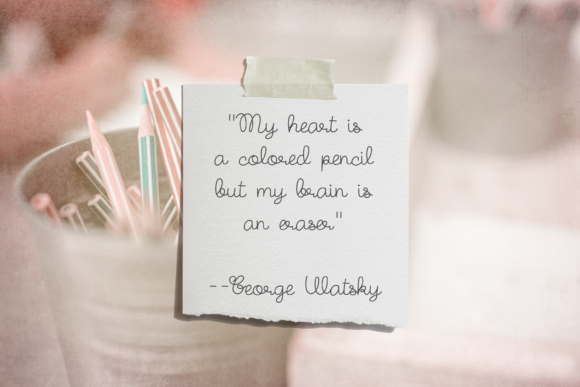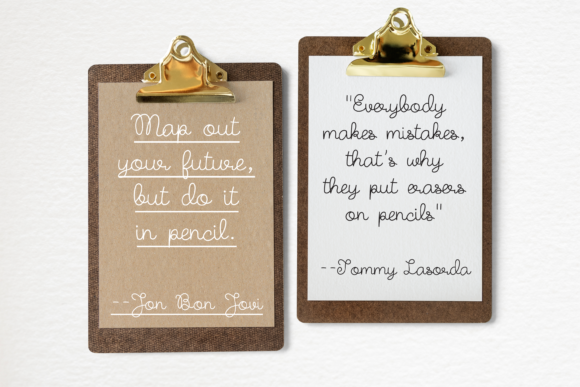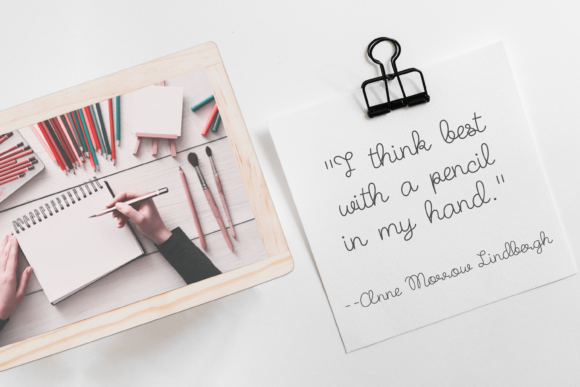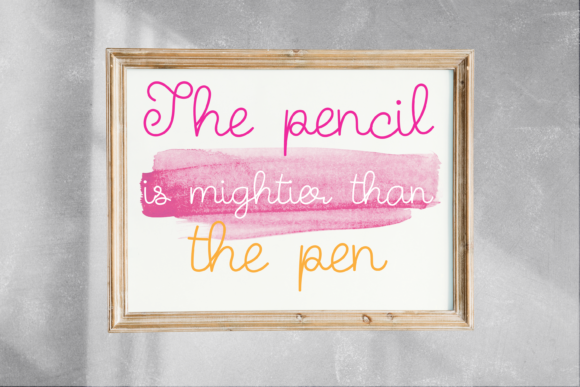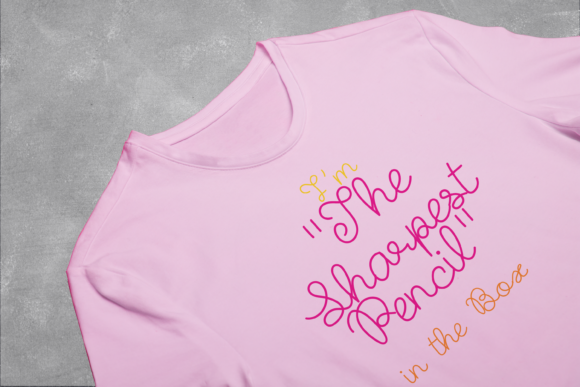
Introduction to Pencil Box Font
Pencil Box is a quirky & cute handwritten script font.
Get inspired by its incredibly cursive feel Use this font to turn any design project into a standout.